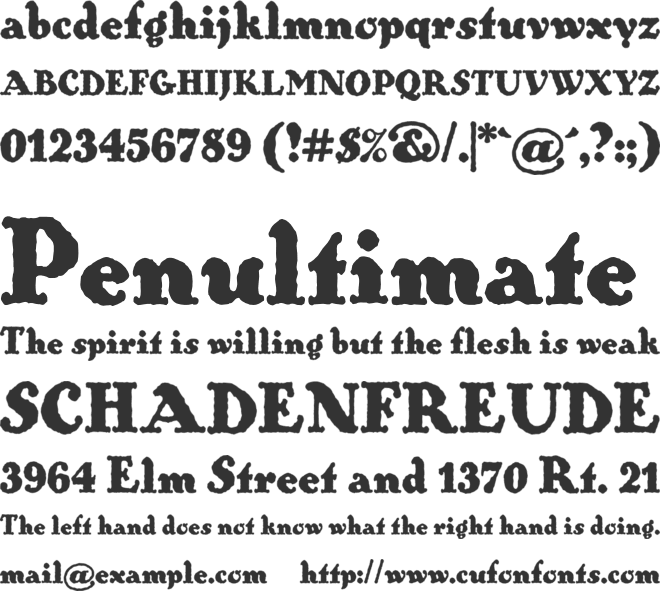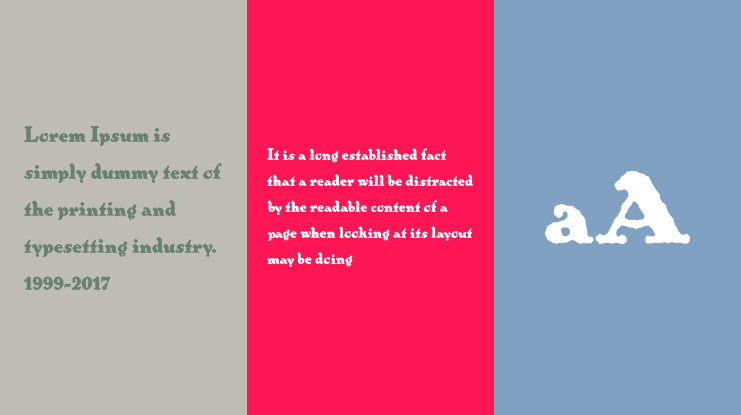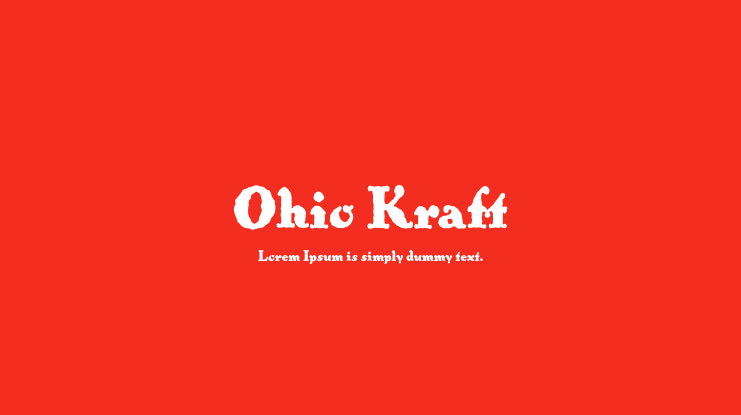
Ohio Kraft Font
Jordi Carreras
A revival version of Ohio Kraft, a design of the 20s by german designer Eduard Lautenbach. This version has full accented characters, standard and discretional ligatures, swash capitals in an OpenType format.